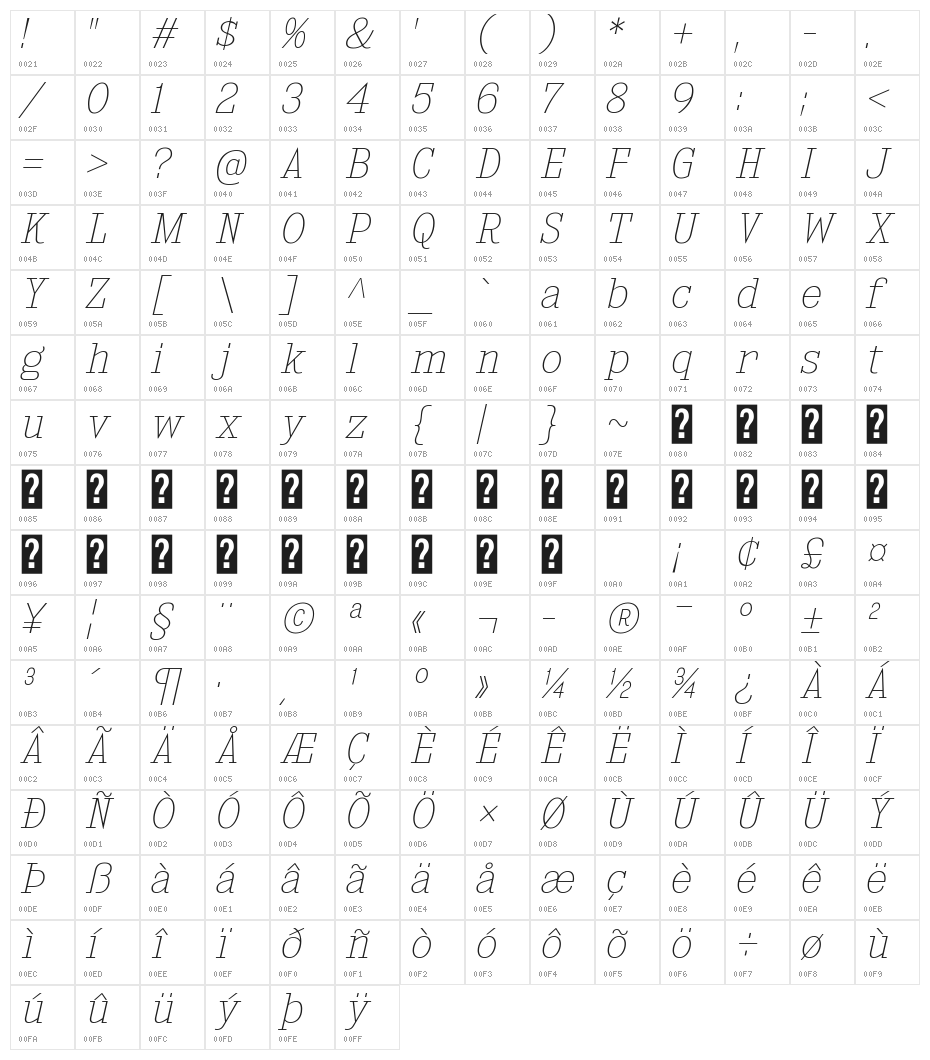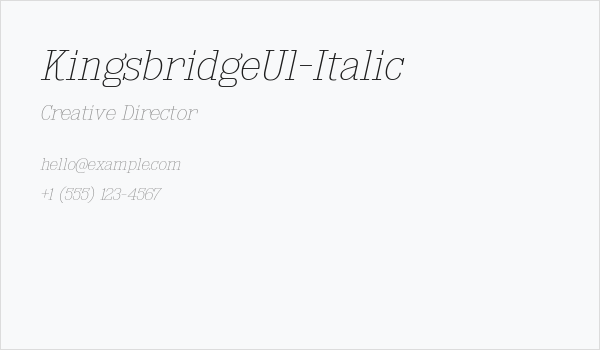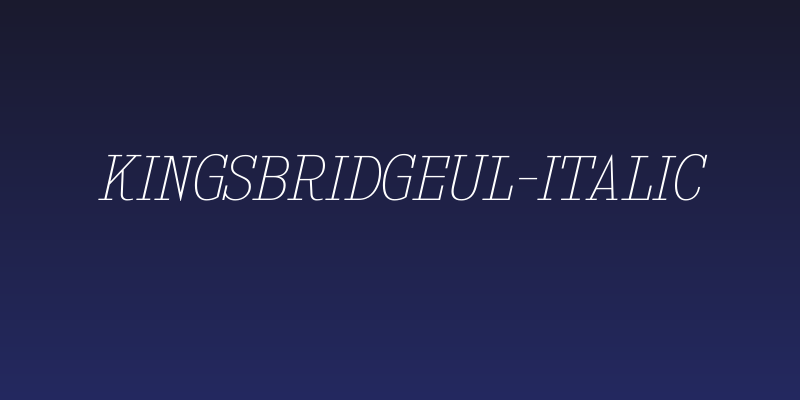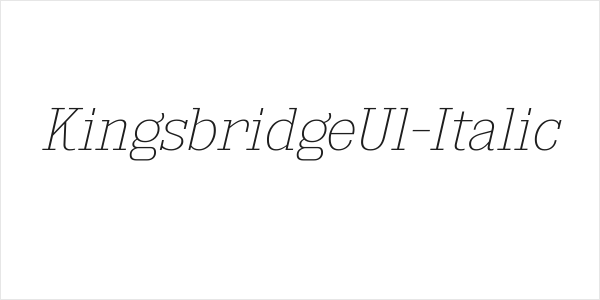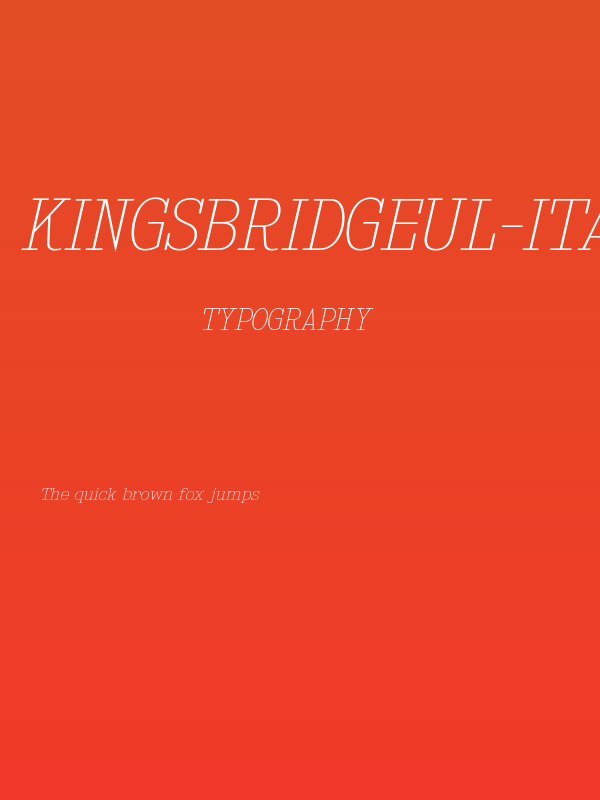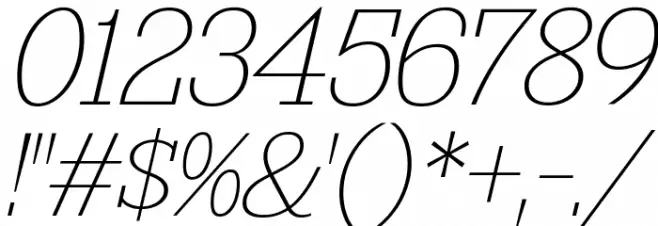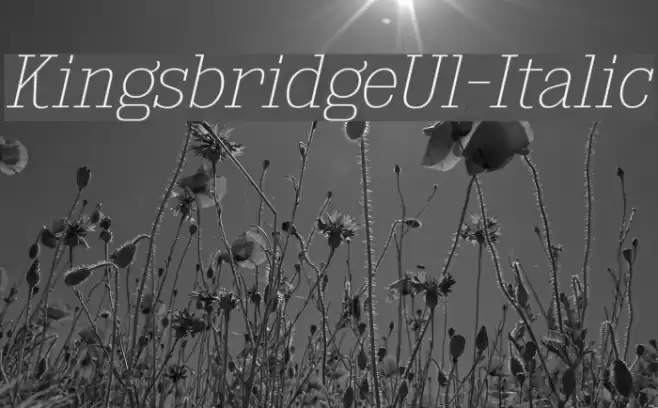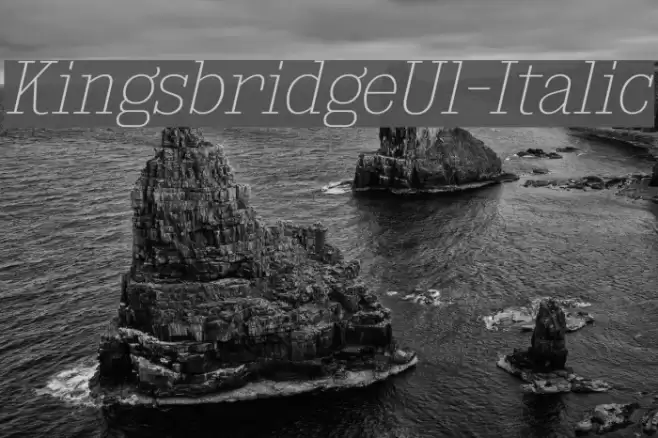
KingsbridgeUl-Italic Font
This font features an elegant and sophisticated italic style, characterized by its thin, elongated strokes and gentle curves. The letters are slightly slanted, giving a sense of motion and fluidity. The uppercase and lowercase characters maintain a consistent height, contributing to a harmonious appearance. The numerals are designed to complement the alphabet with similar stroke widths and angles. Special characters are included, providing versatility for various design needs. The overall aesthetic is refined and modern, making it suitable for upscale branding and editorial design.
| Use Case | Headlines, Editorial design, Branding |
| Proposed Projects | Ideal for luxury branding, fashion magazines, elegant invitations, and high-end product packaging. |